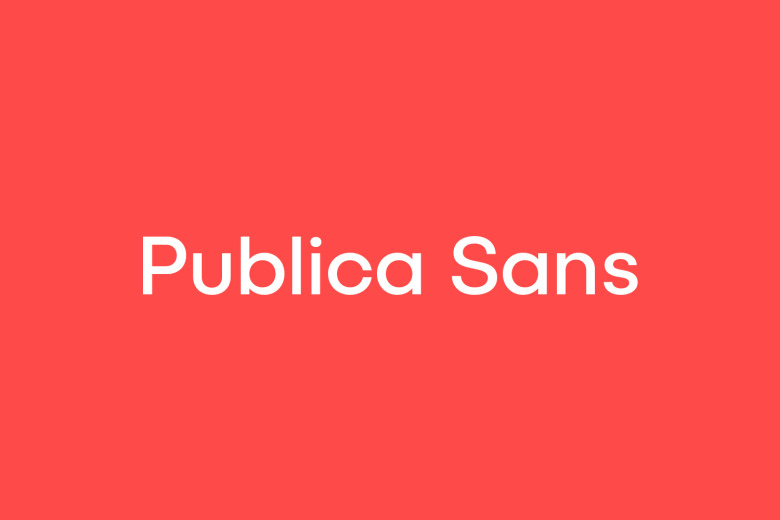
Publica Sans Font Family
Earlier this week pleased to introduce to you a new Sans Serif font. Introducing Publica Sans Font Family! Here is a font family, which includes 18 fonts, designed by FaceType. Publica Sans is a clean geometric typeface, equipped with a variety of OpenType features to give you all you need for great typography: Alternates, arrows, rare currency symbols, case sensitive forms, various sets of figures and discretionary ligatures. There is a dispalyful sister as well: Publica Play.
Publica Sans Serif Font Family